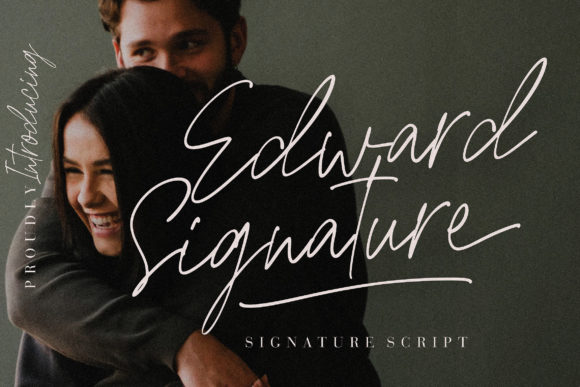
Step into the realm of elegance and grace with Edward Signature Font, a masterpiece that transforms your creative visions into breathtaking realities. This script font, exquisitely crafted by CreatypeStudio, is a symphony of timeless classic calligraphy, reimagined for the modern era.
Edward Signature Font is an artist's canvas, a boundless realm where your imagination can dance freely. Its lines flow with a captivating rhythm, not too thin, not too thick, striking a perfect balance between delicacy and strength. Each letter, a work of art in itself, is a testament to the font's meticulous design, ensuring harmony and visual appeal.
Edward Signature Font is more than just a font; it's a gateway to a world of creative possibilities. Dive into the enchanting world of tattoo artistry, where Edward Signature Font weaves intricate tales on skin, transforming bodies into living canvases. Let your designs take flight, soaring high on the wings of Edward Signature Font's elegance.
Edward Signature Font is also a muse for heartfelt, handwritten notes, love letters penned with a touch of romantic allure. Its curves mimic the gentle sway of a lover's heart, capturing the essence of heartfelt emotions. With Edward Signature Font, your words dance on the page, carrying the weight of your emotions, leaving an indelible mark on the recipient's soul.
Edward Signature Font doesn't shy away from the world of digital expression. Embrace the beauty of social media, where Edward Signature Font transforms your posts into captivating works of art. Let your Instagram feed radiate with charm, your tweets sing with sophistication, and your Facebook updates blossom with elegance. Edward Signature Font elevates your online presence, making every post a masterpiece.
Edward Signature Font is not just a font; it's a journey of self-expression, a path to artistic fulfillment. Its versatility knows no bounds, allowing you to weave your creative magic across a multitude of projects. Let Edward Signature Font be your constant companion, guiding you through the realms of design, crafting beauty with every click.